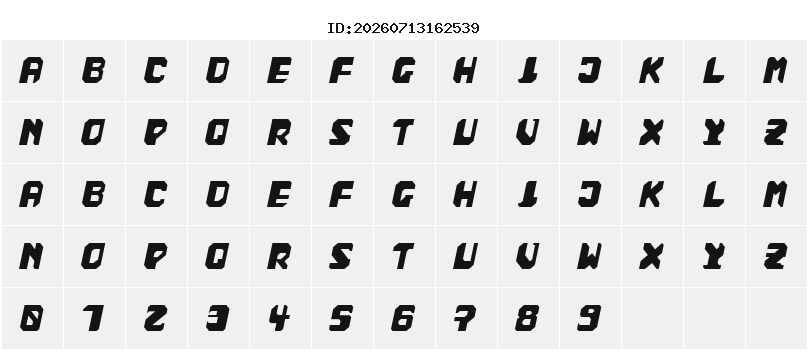
• Font Name: bad fag
• Full Font Name: bad fag
• PostScript Name: Badfag
About bad fag.ttf
bad fag.ttf is a modern, elegant sans-serif font designed for ultimate readability and visual harmony. Perfect for branding, headlines, web design, and print materials.